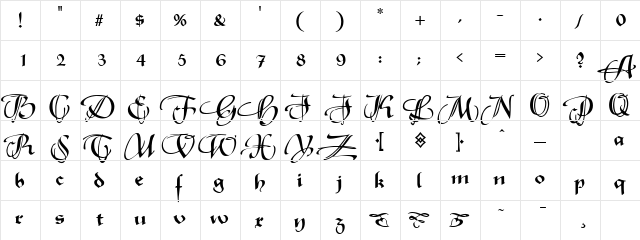
RhapsodieSwashCaps Regular
Design Context for RhapsodieSwashCaps Typeface
RhapsodieSwashCaps flows with the natural rhythm of handwritten lettering, making it ideal for designs that call for warmth and personal expression.
Font Pairing: Combine RhapsodieSwashCaps with a simple geometric sans for maximum contrast — the tension between flowing curves and clean structure is a classic typographic pairing.